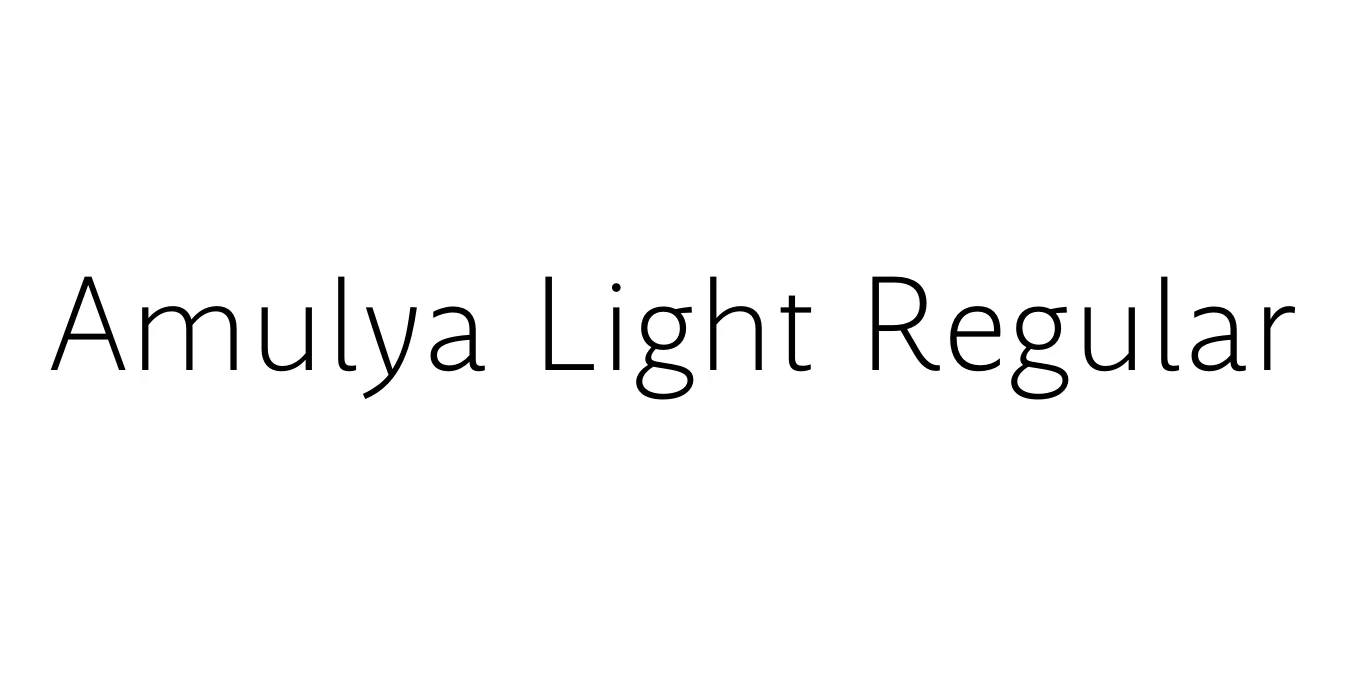
Amulya Light Regular
Designed by Indian Type Foundry
Amulya Light Regular is a sophisticated sans-serif typeface crafted by the Indian Type Foundry. It represents a harmonious blend of geometric structure and humanist warmth, making it an exceptionally versatile choice for modern design palettes. The Light Regular weight specifically offers a refined, airy aesthetic that excels in high-end editorial layouts and minimalist branding projects.
Constructed with generous x-heights and open apertures, the font maintains high legibility across various screen resolutions and print environments. Its clean, balanced proportions allow designers to create professional hierarchies without compromising on character or style. Whether used for digital interfaces or physical stationery, Amulya provides a contemporary feel that bridges the gap between classic typography and futuristic trends.
Amulya Light Regular Best Uses
Perfect for magazine headings, pull quotes, and elegant body text.
Ideal for creating sophisticated and modern corporate identities.
Excellent for clean user interfaces and minimalist blog layouts.
Well-suited for high-fashion posters and luxury product packaging.